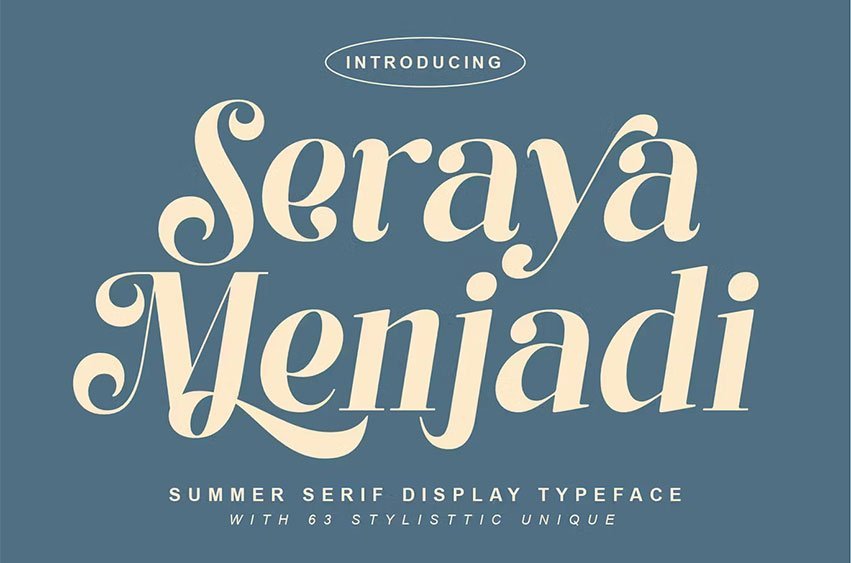
Seraya Menjadi Font is a Bold Elegant Modern vintage font with italic version. It’s a very versatile font that works great in large and small sizes. Perfect for branding projects, Logo design, product Branding, product packaging, magazine headers, or simply as a stylish text overlay to any background image.
Seraya Menjadi Font Preview